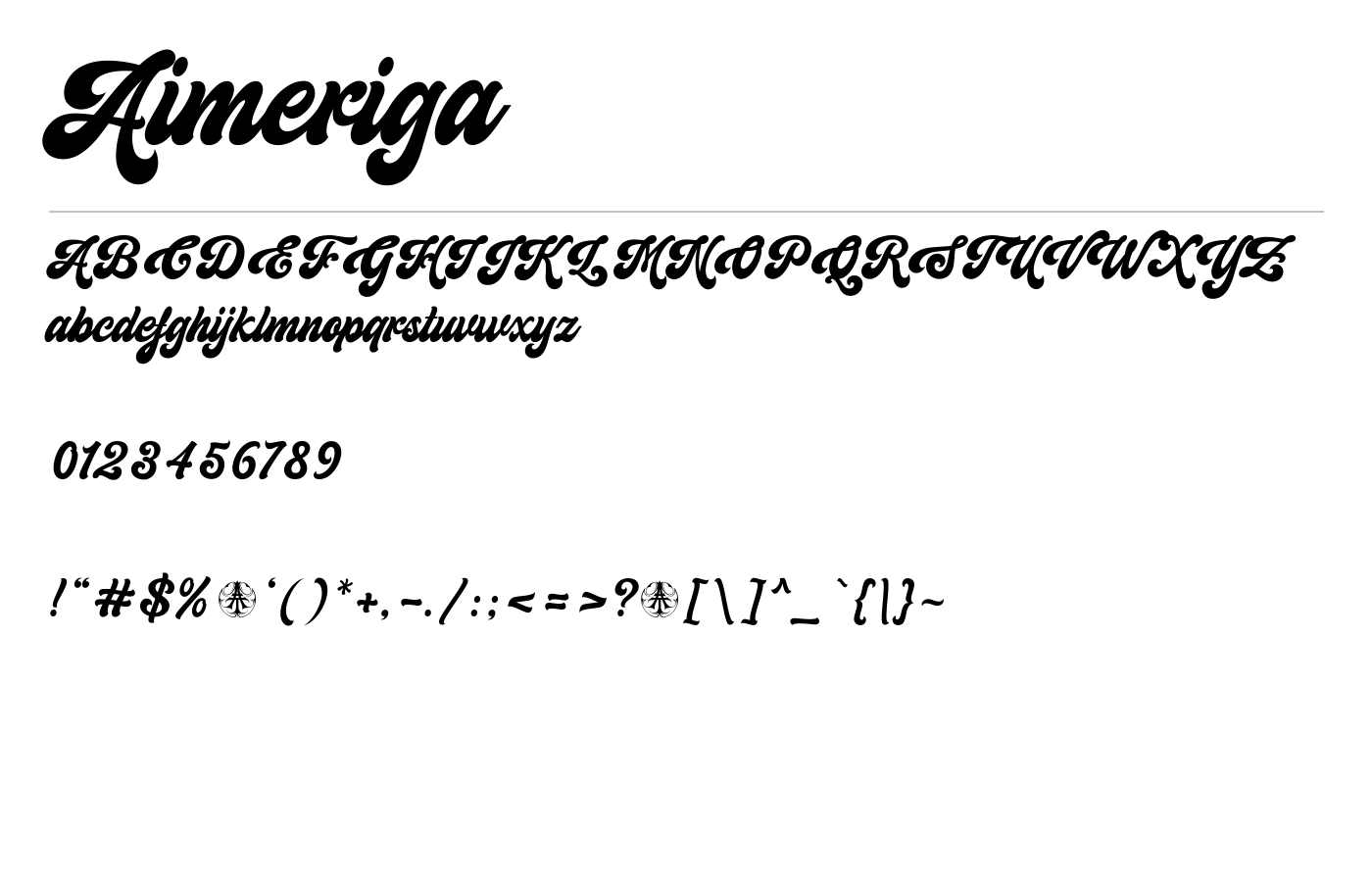
Aimeriga is a bold, cursive script font with a vintage flair, characterized by its thick, flowing strokes and smooth, connected letterforms. Its playful yet elegant style makes it ideal for creating eye-catching logos, branding, and headlines that seek a lively, retro-inspired personality. This font works beautifully in fashion, packaging, or any creative project that benefits from a bold, handcrafted touch.
Aimeriga Font
About Aimeriga Font